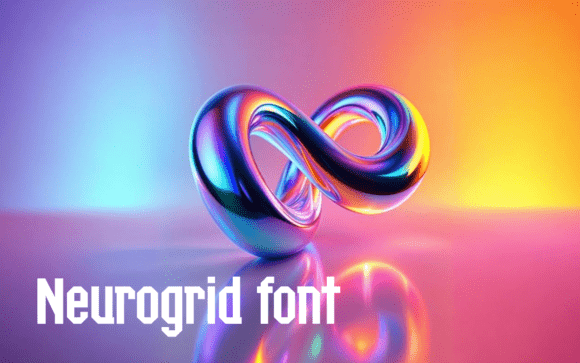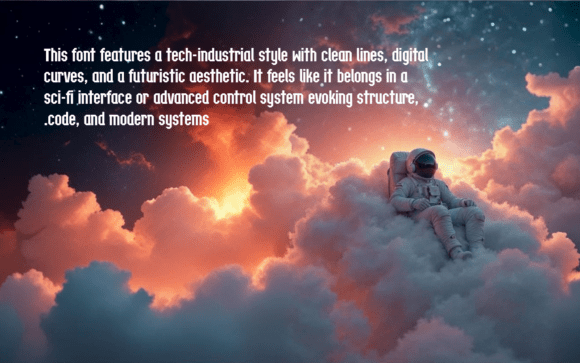
Neurogrid Font: Modern, Bold Font for Futuristic & Tech Branding
About the Neurogrid Font
Elevate your designs with Neurogrid Font, a font that combines sophistication with readability. Step into the system with Neurogrid – the font that defines intelligent design.
Every letter is engineered for impact, blending futuristic form with digital precision. Whether you’re building the next AI brand or designing immersive tech, Neurogrid speaks your language.
Bold. Modern. Unmistakably next-gen.
Neurogrid excels in headline applications, short impactful statements, and branding elements where a strong, futuristic aesthetic is desired. Its geometric forms and bold strokes make it ideal for technology-focused projects, logos, posters, and even select packaging designs requiring a sense of high-tech sophistication. However, its condensed letterforms and strong visual presence make it less suitable for body text or extended reading.
Pairing Neurogrid effectively requires considering its assertive personality. A clean, neutral sans-serif like Open Sans can provide a solid counterpoint for readability in supporting text, while a script font with a similarly modern feel, such as Cormorant Garamond, can add a touch of elegance to secondary elements. Avoid pairing it with overly decorative or playful fonts; its bold character should dominate.
Neurogrid projects a bold, modern, and undeniably confident personality. Its strong geometric structure conveys a sense of precision and intelligence, making it a powerful tool for brands aiming to communicate innovation and cutting-edge technology.
Neurogrid Font Usage Examples
Neurogrid Font Example